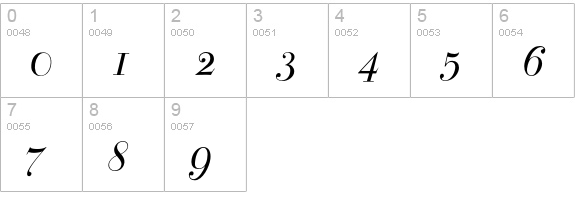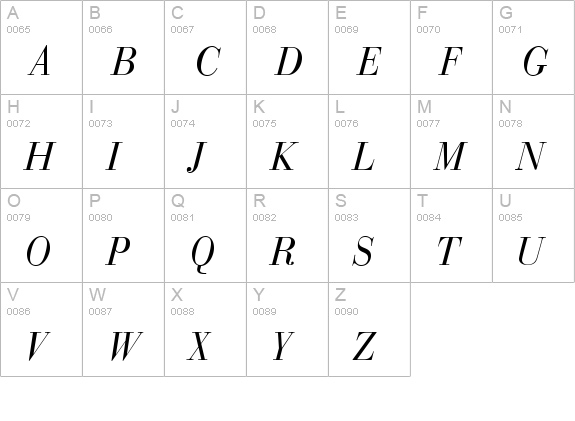
BodoniClassic-Italic is a distinctive, italic variant in the BodoniClassic typeface family \xE2\x80\x94 well suited to design and typography projects.
BodoniClassic-Italic is a timeless font that exudes elegance and sophistication. With its slanted and graceful letterforms, this italic typeface adds a touch of sophistication to any design project. The classical and refined aesthetic of BodoniClassic-Italic makes it a perfect choice for luxury brands, editorial designs, and elegant invitations. And the best part? BodoniClassic-Italic is available for free download at FontsMarket.com. Now you can easily elevate your projects with this exquisite font without breaking the bank. Don't miss out on the opportunity to add a touch of timeless beauty to your designs with BodoniClassic-Italic.